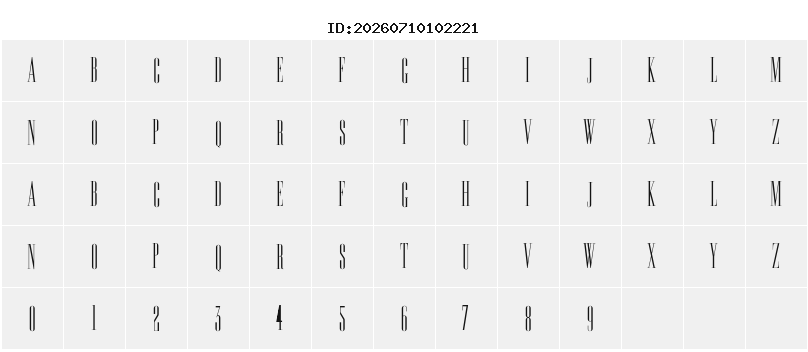
Edition Preview
About Edition.ttf
Edition.ttf is a modern, elegant sans-serif font designed for ultimate readability and visual harmony. Perfect for branding, headlines, web design, and print materials.